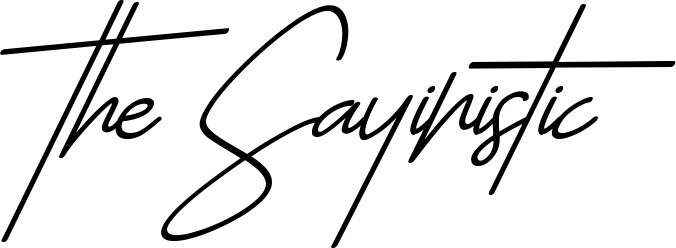
The Sayinistic Font
The Sayinistic is a script font and it was designed to look like handwriting. This unique feature can be really useful when you want your text to have an informal and personal vibe and can be used in magazines, fashion blogs, decorative titles, headlines, etc.
In this font, you will find only the uppercase and lowercase of the alphabets and there are no numbers and punctuation marks. Also, this font isn’t easy to read so keep it short.